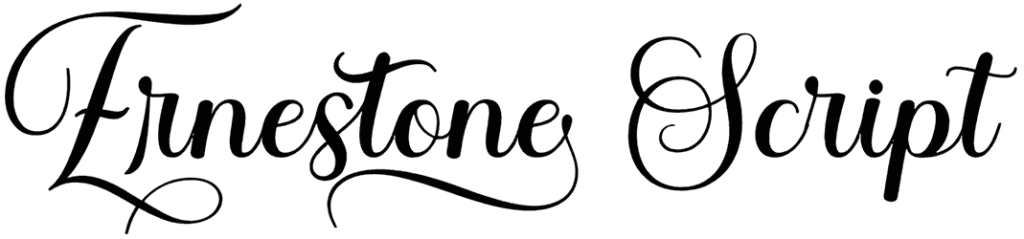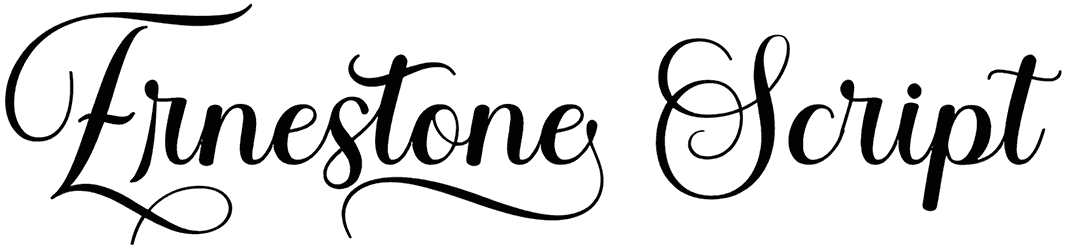
Ernestone Script Font
The Ernestone Script font is a beautiful calligraphy font that works wonderfully for usage in greeting cards, invitations, and banners. Using this romantic font, you will be able to immediately begin the process of designing something distinctive and fascinating. Would you be interested in looking through the entirety of our wonderful font in RB? It consists of a large number of freebies that are as beneficial to you as this one.